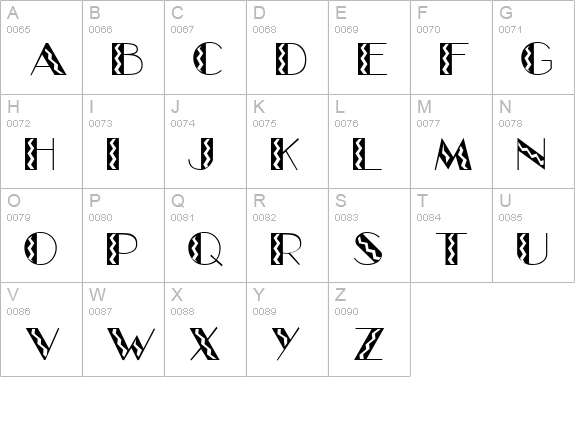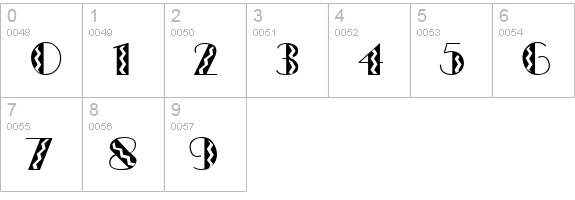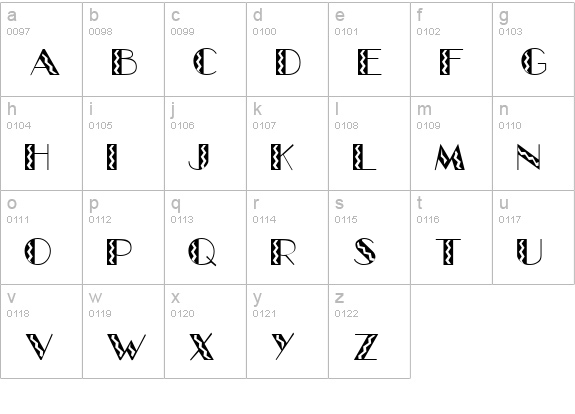
Whitesnake Font Details
Whitesnake font is a bold and eye-catching typeface that exudes elegance and sophistication. With its sleek lines and modern design, this font is perfect for creating stunning and impactful designs. Whether you're working on a branding project, a poster, or any other creative endeavor, Whitesnake font will surely make your text stand out. The best part? Whitesnake font is completely free to download at FontsMarket.com. You can easily access this stylish font and incorporate it into your projects without any cost. Don't miss out on the opportunity to enhance your designs with the striking appeal of Whitesnake font. Download it today and unleash your creativity!